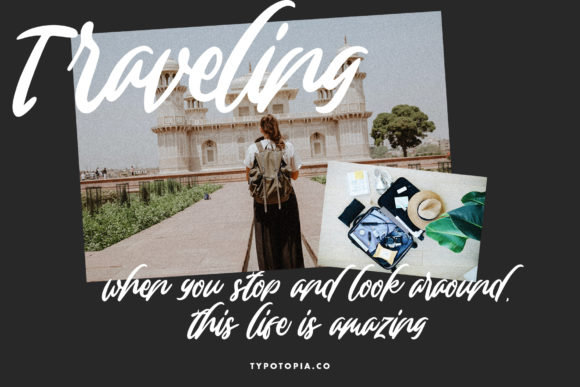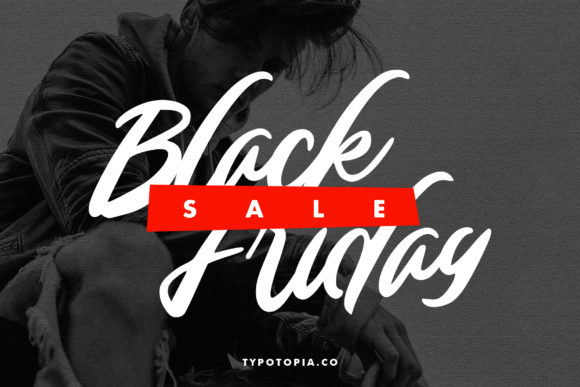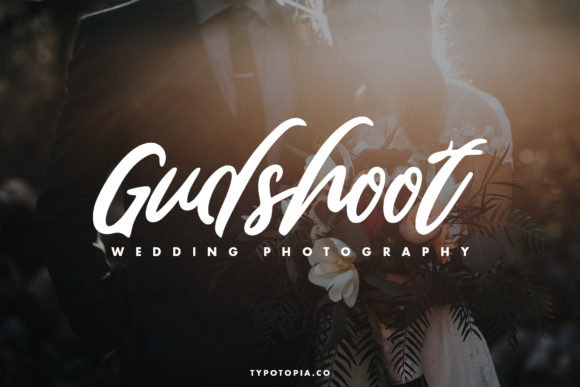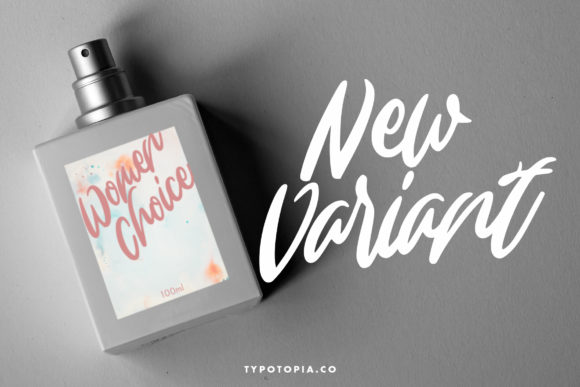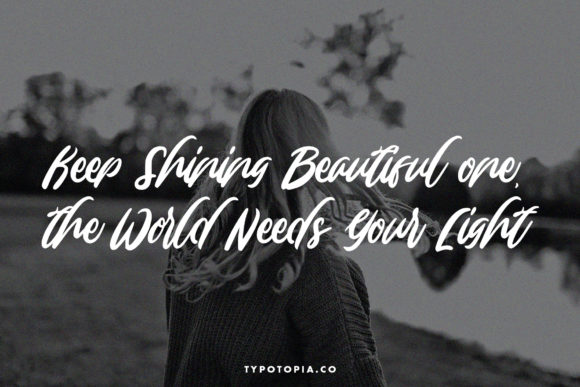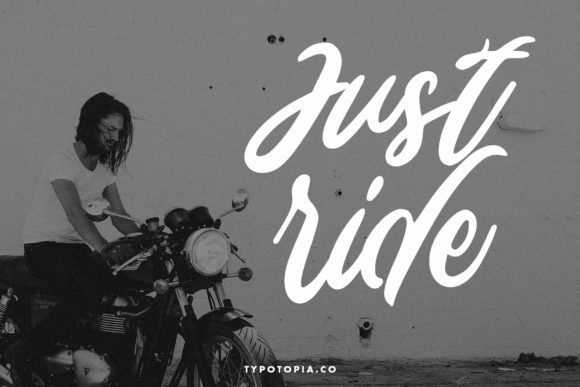
The Designer’s Dream: A Deep Dive into the Edinburg Font
I’ll never forget the time I was working on a branding project for a luxury hotel, and I just couldn’t find the right font to capture the essence of their high-end experience. The client wanted something elegant, yet bold; sophisticated, yet approachable. I spent hours scouring font libraries, but nothing seemed quite right. That’s when I stumbled upon the Edinburg font. It was like a breath of fresh air – bold, beautiful, and perfectly suited to the project’s needs. In this article, I’ll share my love for the Edinburg font, its features, and how to make the most of it in your designs.
An Honest Review: What I Love (and What to Watch Out For)
- ✅ Versatility: Edinburg is a script font that can adapt to any design project, from luxury branding to wedding invitations.
- ✅ Legibility: Despite its bold nature, Edinburg remains surprisingly legible, even at smaller font sizes.
- ✅ Elegance: The font’s flowing lines and beautiful swashes add a touch of sophistication to any design.
- ⚠️ Overuse of swashes: While Edinburg’s swashes are gorgeous, overusing them can make your design look cluttered. Use them sparingly for maximum impact.
- ⚠️ Kerning issues: As with any script font, be mindful of kerning issues, especially when using Edinburg at larger font sizes.
Exploring Alternatives: Similar Fonts to Edinburg
If you love Edinburg, you might also enjoy these similar fonts:
- Lobster: A classic script font with a more casual, whimsical feel. Use it for creative projects or branding that needs a playful touch.
- Pacifico: A beautiful, elegant script font with a relaxed, beachy vibe. Perfect for designs that need a laid-back, summery feel.
- Great Vibes: A modern script font with a bold, adventurous spirit. Use it for designs that need a confident, statement-making font.
- Alex Brush: A lovely, handwritten script font with a soft, feminine touch. Ideal for designs that require a more personal, approachable feel.
The Story Behind Edinburg: Designer Inspiration
While the origins of Edinburg are shrouded in mystery, it’s clear that the font was designed with elegance and versatility in mind. Imagine a designer, sipping coffee in a quaint Scottish café, inspired by the rugged beauty of the Edinburgh landscape. They set out to create a font that would capture the essence of this stunning city – bold, yet refined; classic, yet modern. And so, Edinburg was born.
Q: What makes Edinburg a great choice for luxury branding?
A: Edinburg’s bold, elegant design makes it perfect for luxury branding projects. Its sophisticated swashes and refined lines evoke a sense of high-end quality.
Q: Can I use Edinburg for body text?
A: While Edinburg is legible, it’s primarily designed for display text. For body text, consider using a clearer, sans-serif font to ensure readability.
Q: Does Edinburg support OpenType features?
A: Yes, Edinburg supports OpenType features like swashes, stylistic alternates, and glyphs. Experiment with these features to add visual interest to your designs.
Q: Is Edinburg suitable for digital use?
A: Absolutely! Edinburg’s bold design and clear lines make it suitable for digital use, from website headers to social media graphics.